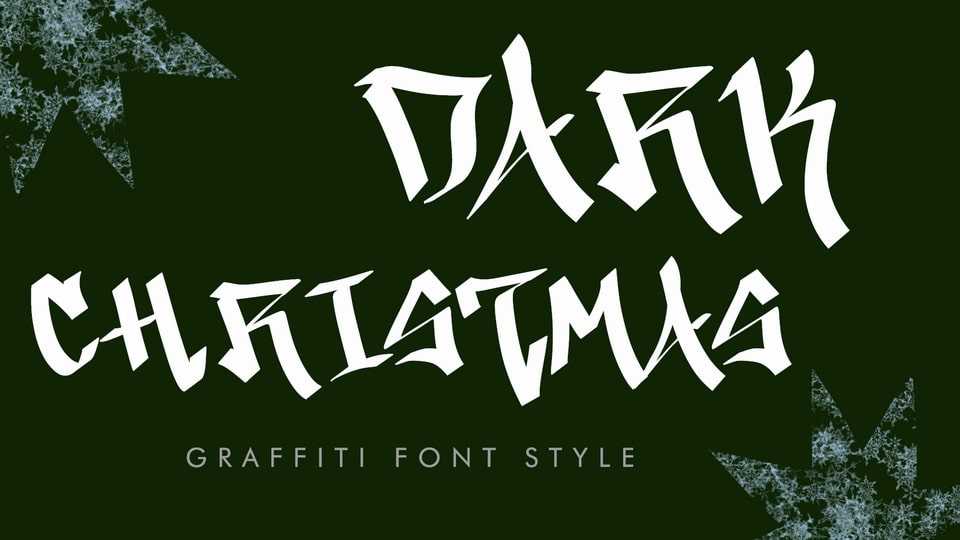
Download Dark Christmas font, a unique Christmas graffiti typeface. It’s perfect for Christmas, Halloween, winter, fall, autumn, spring, and summer, banners, posters, branding, stickers, logos, tattoos, business branding